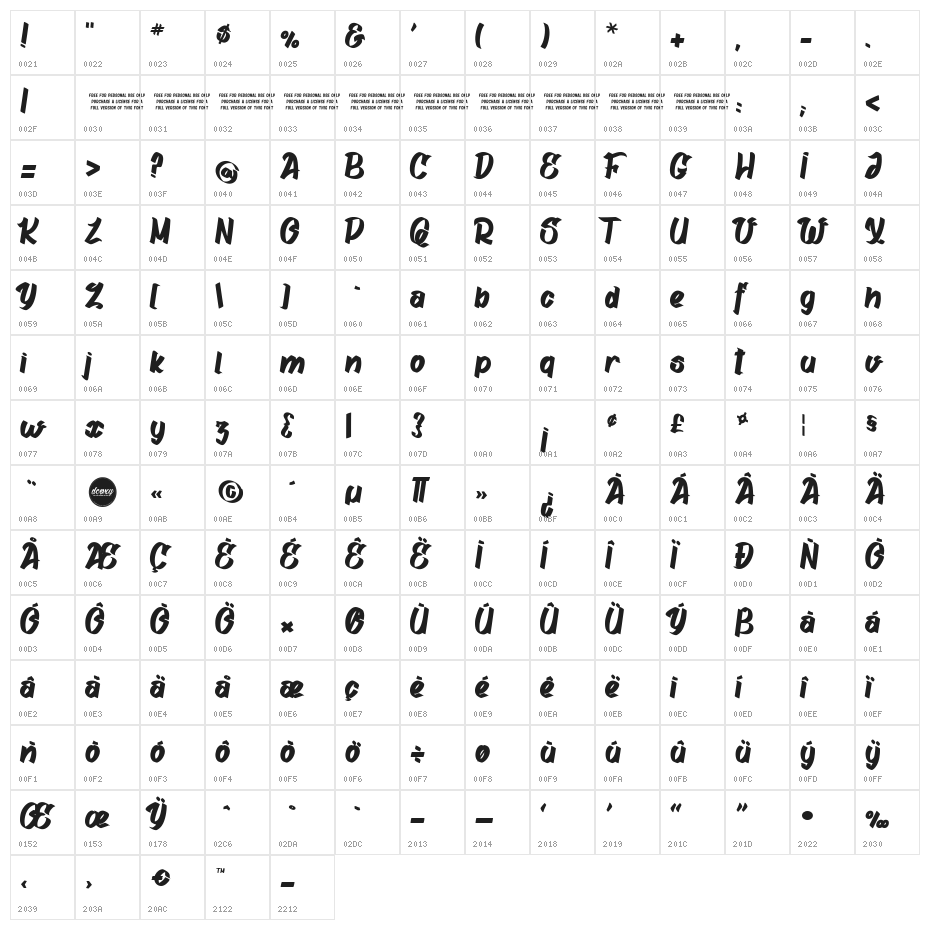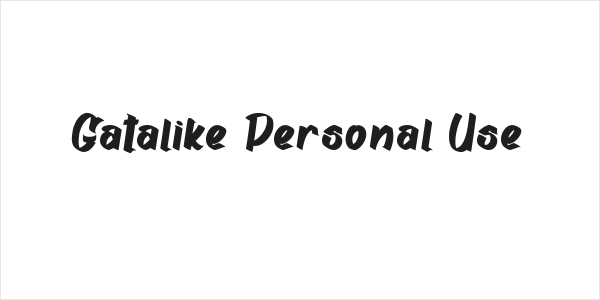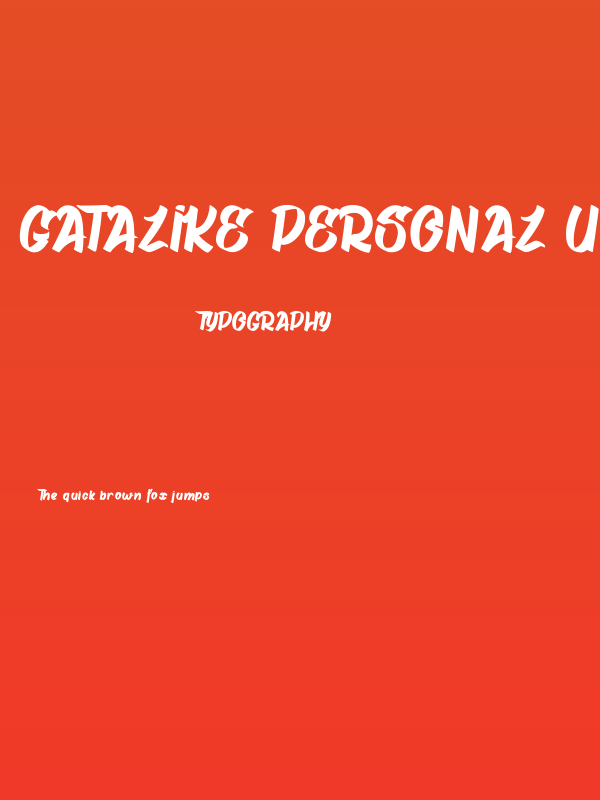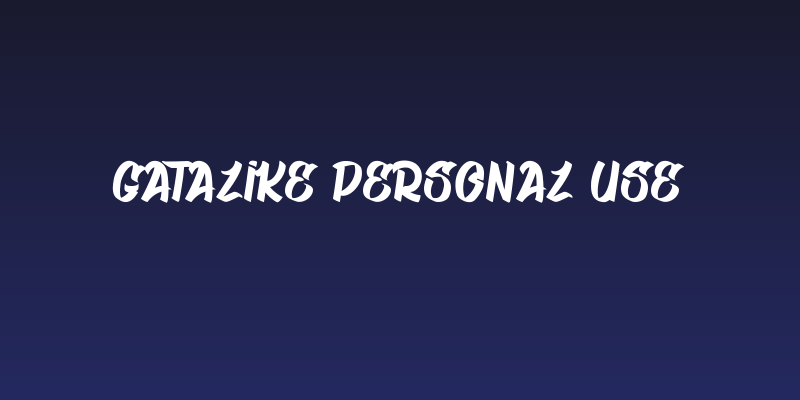
Gatalike_Personal Use Font
Gatalike_Personal Use Description
This font features a bold and dynamic script style with a strong presence. The characters are designed with a brush-like appearance, giving them a hand-drawn, artistic feel. The uppercase letters are particularly striking, with exaggerated curves and flourishes that add to the overall dramatic effect. The lowercase letters maintain the same energetic style, ensuring consistency throughout the text. The numbers and special characters are equally expressive, making this font suitable for creative and eye-catching designs. The overall impression is one of movement and fluidity, ideal for projects that require a bold statement.
| Proposed Projects | Ideal for branding, posters, headlines, and creative design projects that require a strong visual impact. |